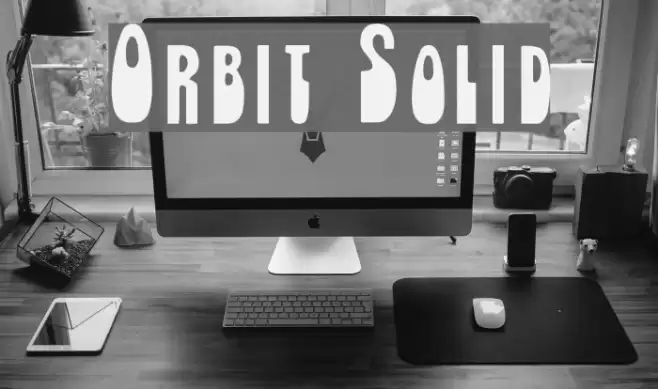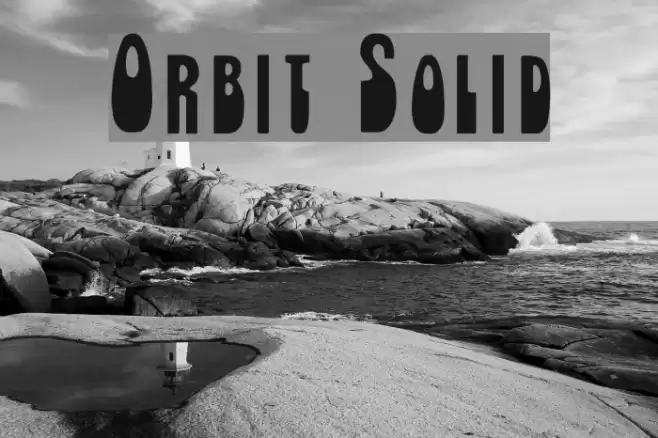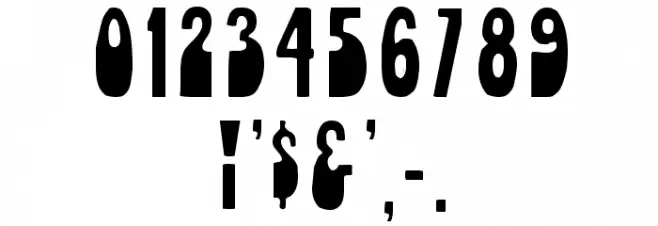
Orbit Solid Font
Orbit Solid Description
This font features a bold and striking design with thick, solid strokes that create a strong visual impact. The characters are tall and narrow, giving them a condensed appearance, while the rounded edges add a touch of softness to the overall look. The uppercase and lowercase letters maintain a consistent style, with a playful yet assertive presence. Numbers and special characters are designed to match the boldness of the alphabet, ensuring a cohesive look across all text elements. This font is ideal for making a statement in any design project.
A bold, condensed font with rounded edges and a strong visual impact from Uncategorized fonts.
- Proposed Projects: Perfect for posters, headlines, logos, and branding materials where a bold statement is needed.